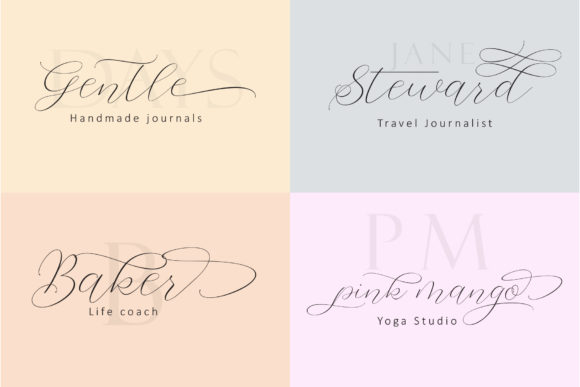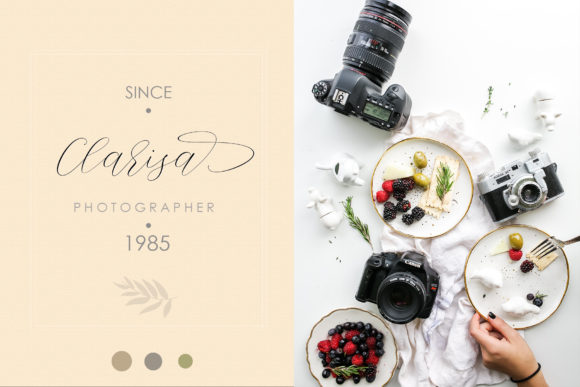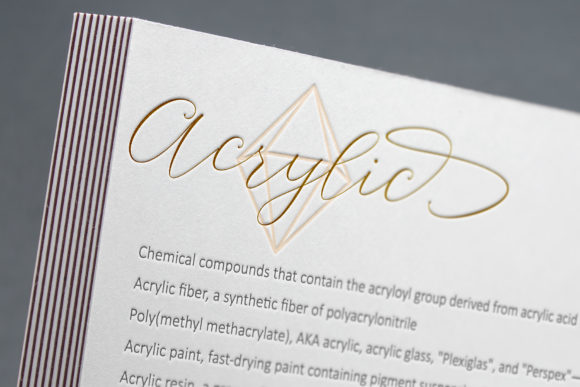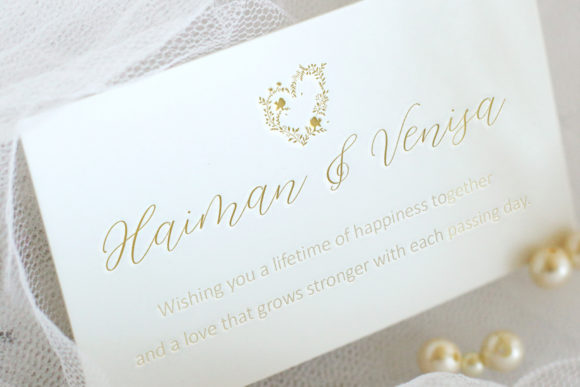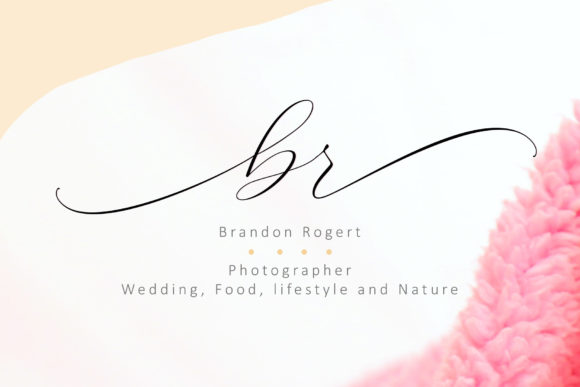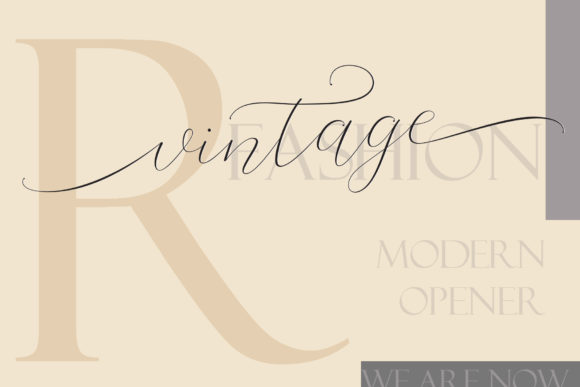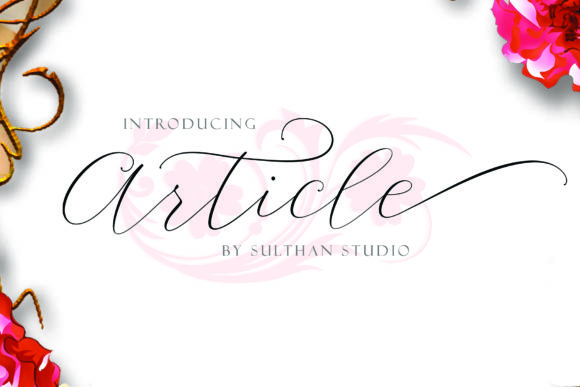
The Article Script Font: A Modern Romance for Designers
I’ll never forget the moment I stumbled upon the Article script font. I was working on a wedding invitation project for a client who wanted something that exuded elegance and romance. As I scrolled through my font library, I felt like I was running out of options – everything seemed either too formal or too playful. That’s when I saw Article, and it was love at first sight! 💕
An Honest Review of Article Script Font
- ✨ Beautifully crafted letters with a modern twist on traditional script
- ✅ Elegant and sophisticated, perfect for high-end projects
- 💫 Unique style that sets it apart from other script fonts
- 📝 Highly legible, even at smaller font sizes
While Article is an amazing font, there are a few things to keep in mind:
- 🤔 Some letters may require manual kerning for optimal spacing
- ⚠️ Not ideal for body text or long paragraphs, as it’s best used for headings and titles
- Experiment with OpenType features, such as stylistic alternates and glyphs, to add visual interest
The Designer Inspiration Behind Article
The Article script font was designed with the goal of creating a modern, elegant script that combines beauty and sophistication. The designer aimed to craft a font that would be perfect for high-end projects, such as wedding invitations, luxury branding, and upscale advertising.
| What is the Article script font best used for? | The Article script font is best used for headings, titles, and short paragraphs where you want to add a touch of elegance and sophistication. |
| Is Article a difficult font to read? | No, Article is highly legible, even at smaller font sizes. However, it’s best used for short paragraphs or headings rather than body text. |
| Does Article have OpenType features? | Yes, Article has OpenType features, including stylistic alternates and glyphs, which can be accessed in compatible design software. |